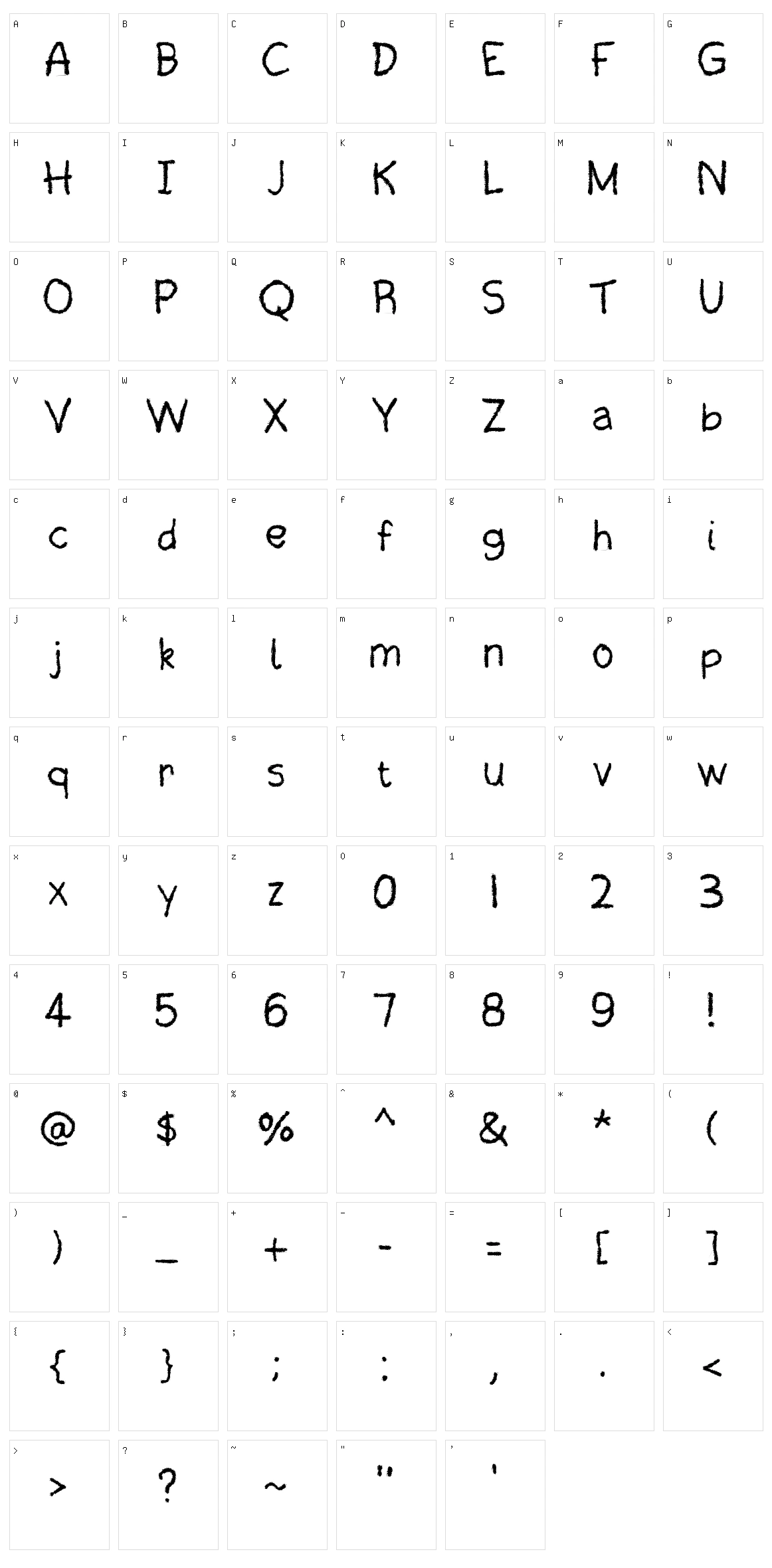
The free font Crayonara is carefully designed by Brixdee, showcasing a thoughtful balance of creativity and usability and falls under the Trash font style. When you download the ZIP file, it contains only 126.25 KB of font files, making it lightweight and quick to download. Please review the license details below to understand permitted usage and distribution rights. If license information is not available, we recommend using this font for personal projects only or contacting the author directly for commercial usage permissions.
This font "Crayonara" is created by Francis Fonye.